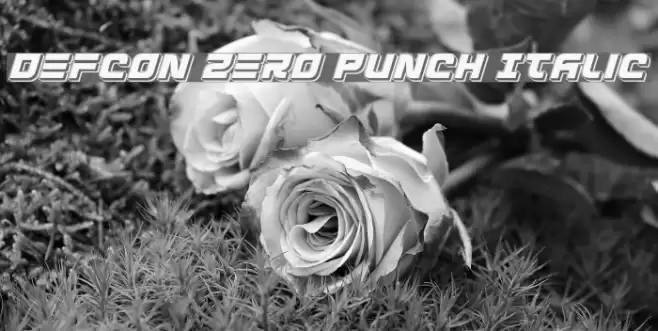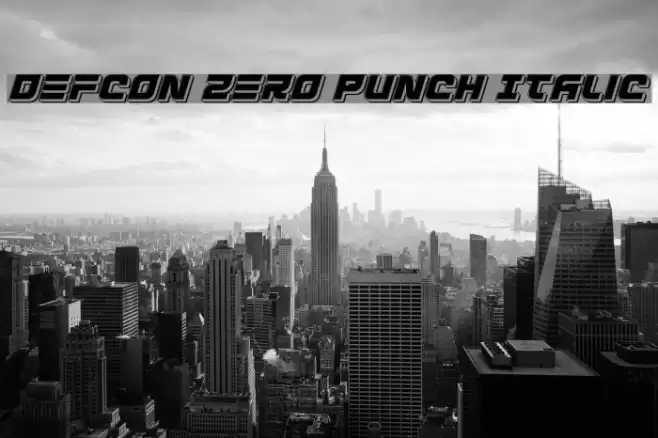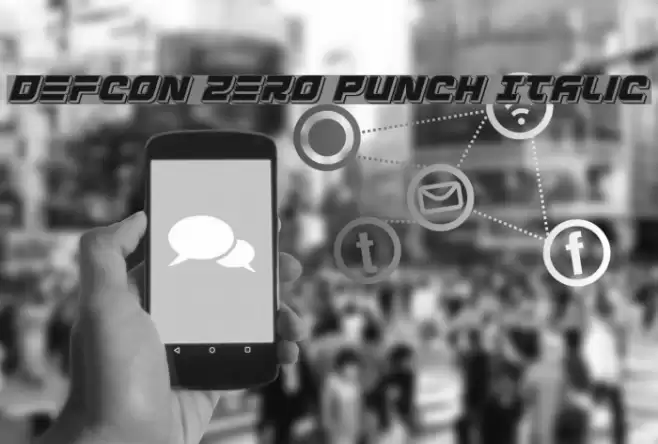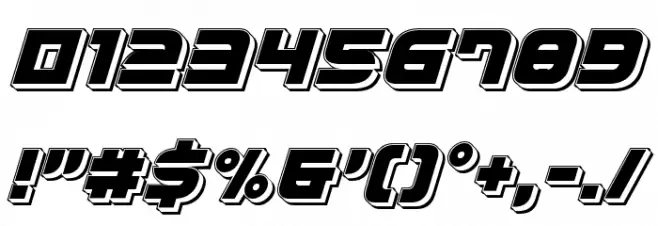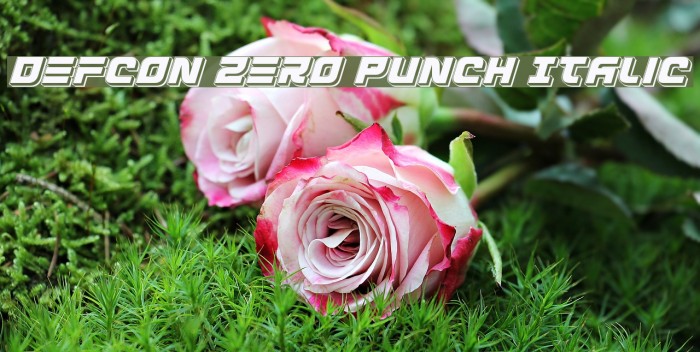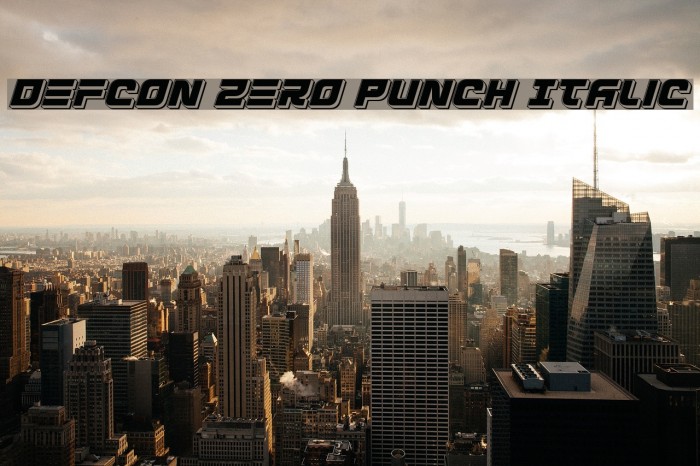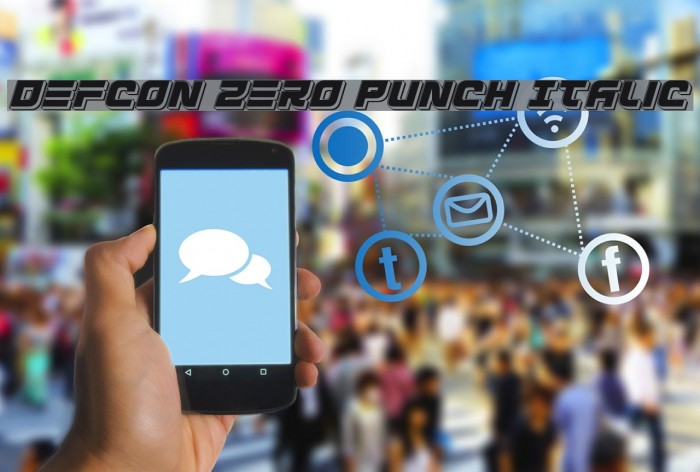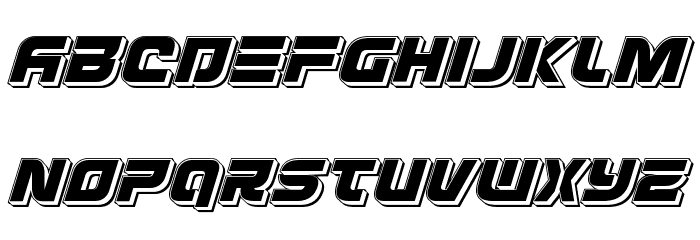
Defcon Zero Punch Italic Font
Defcon Zero Punch Italic Description
This font features a bold, italicized style with a futuristic and dynamic appearance. The characters are designed with a three-dimensional effect, giving them a sense of depth and movement. The strokes are thick and consistent, contributing to a strong visual impact. The edges are sharp and angular, enhancing the modern and edgy feel. The font includes both uppercase and lowercase letters, numbers, and a variety of special characters, making it versatile for different design needs. Its unique style is suitable for projects that require a bold statement, such as posters, logos, and headlines.
A bold, italicized font with a futuristic, three-dimensional style from Sci-fi fonts.
- Proposed Projects: Ideal for sci-fi themed designs, gaming logos, tech branding, and dynamic posters.